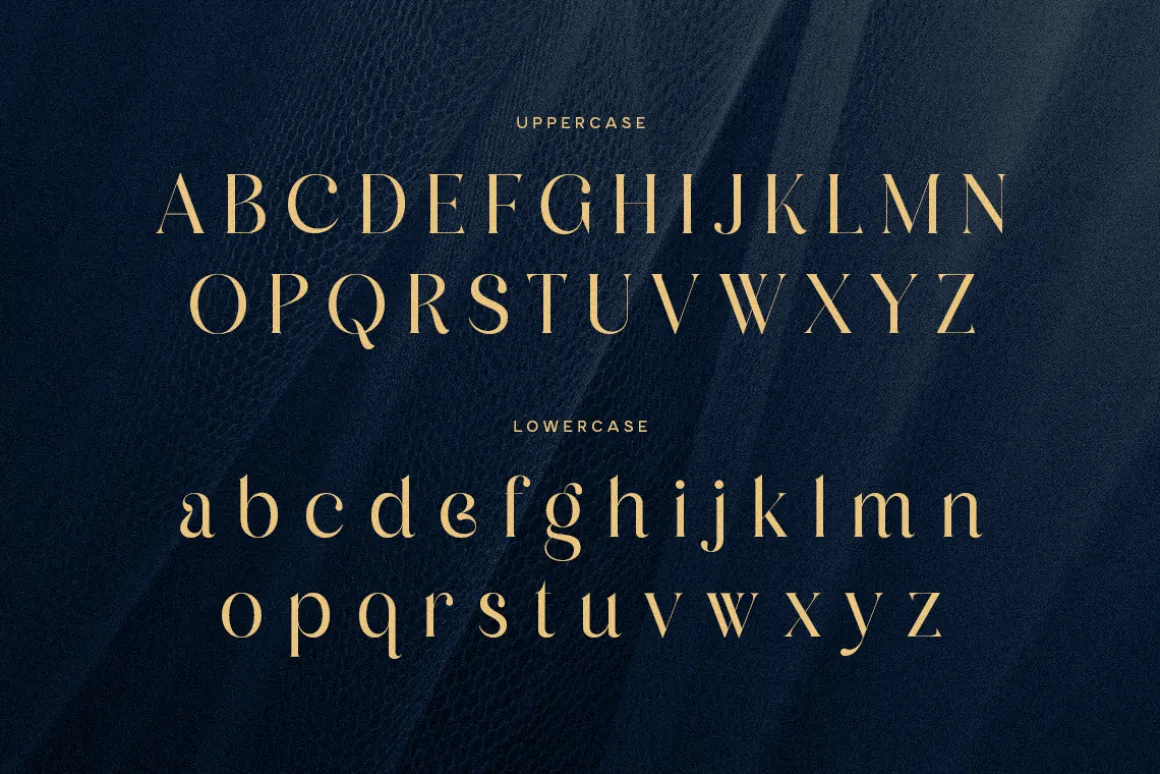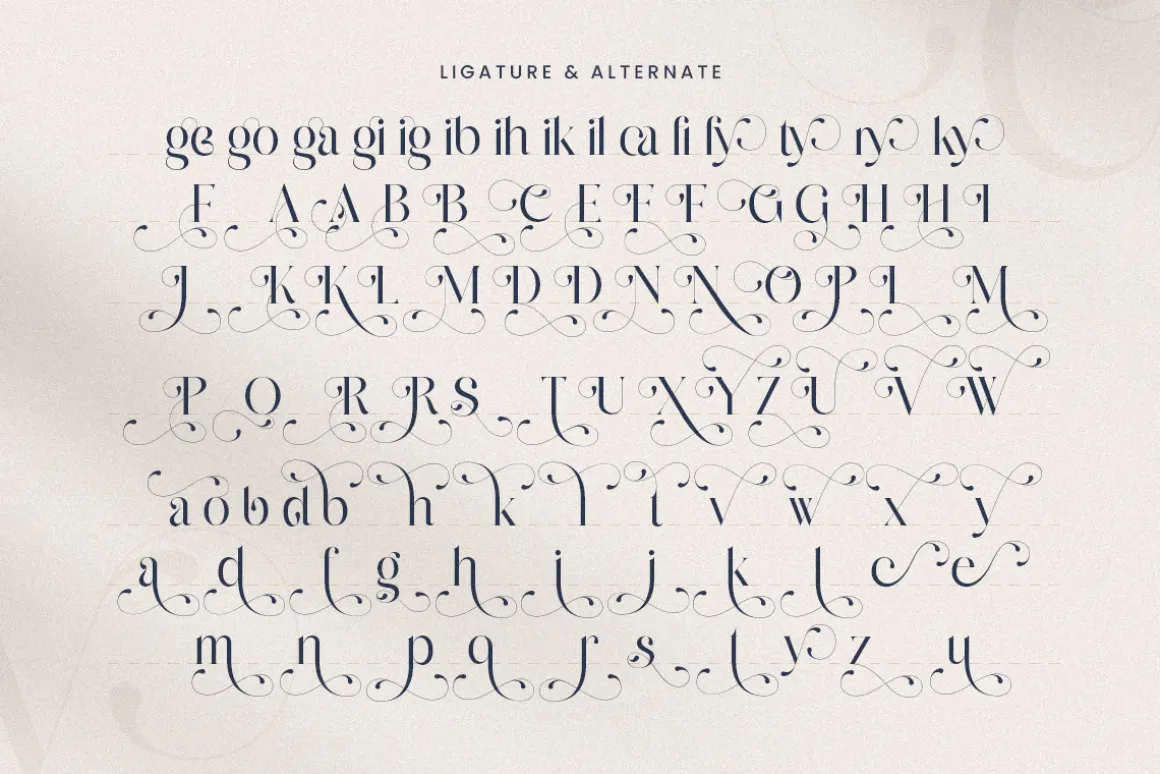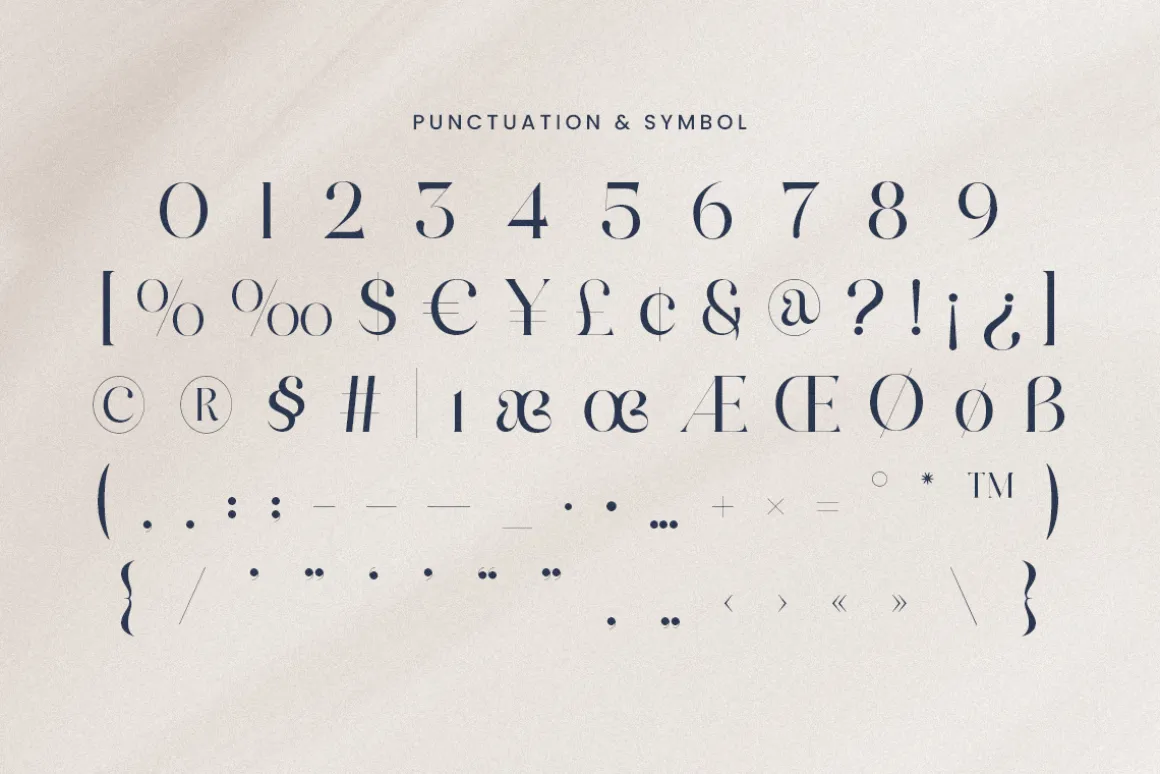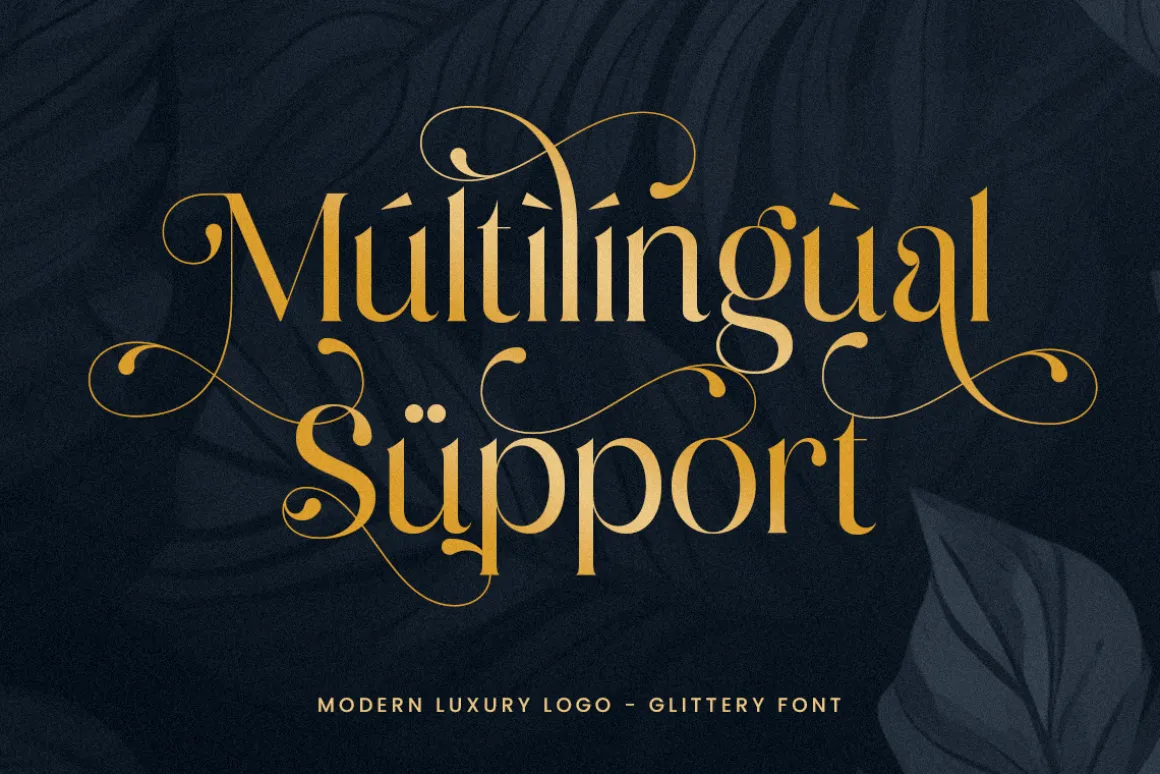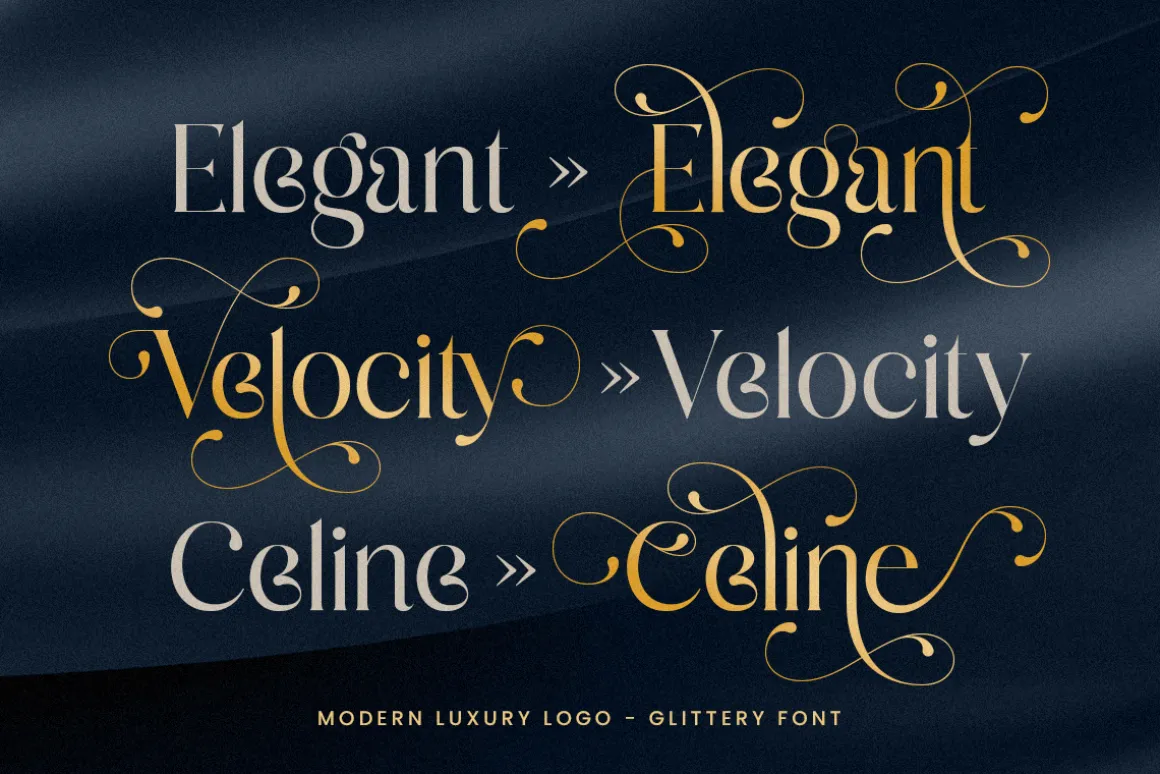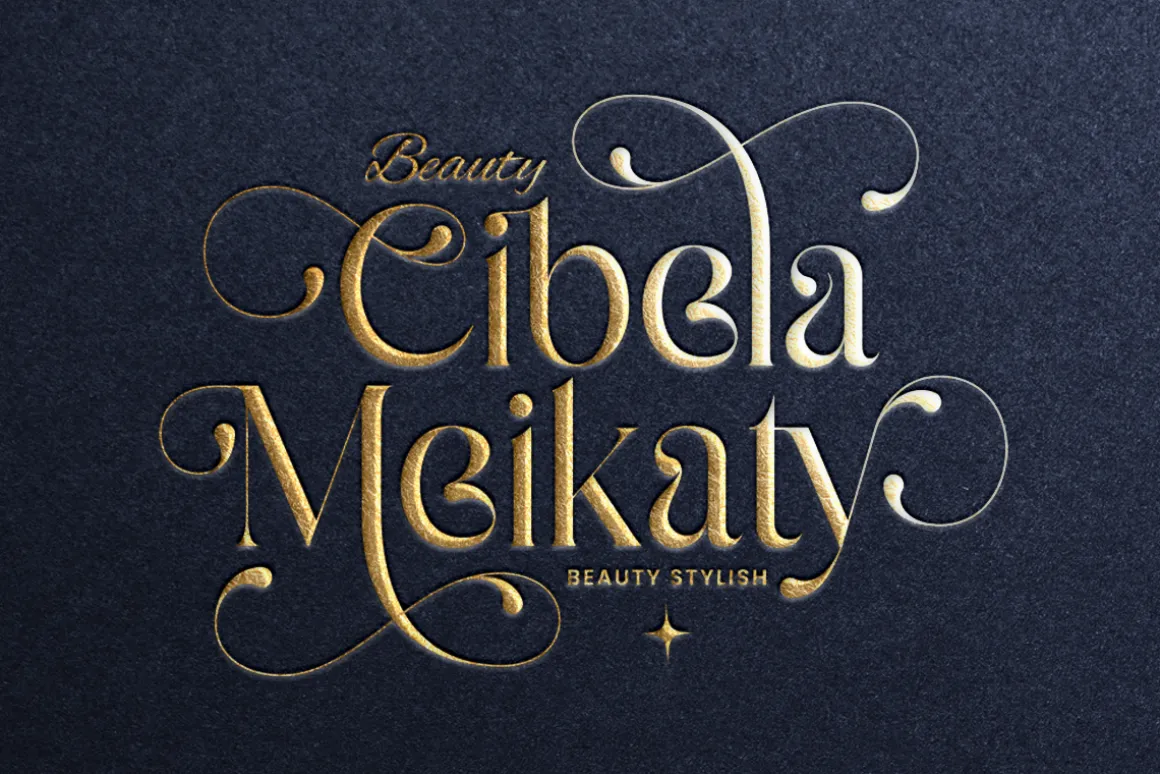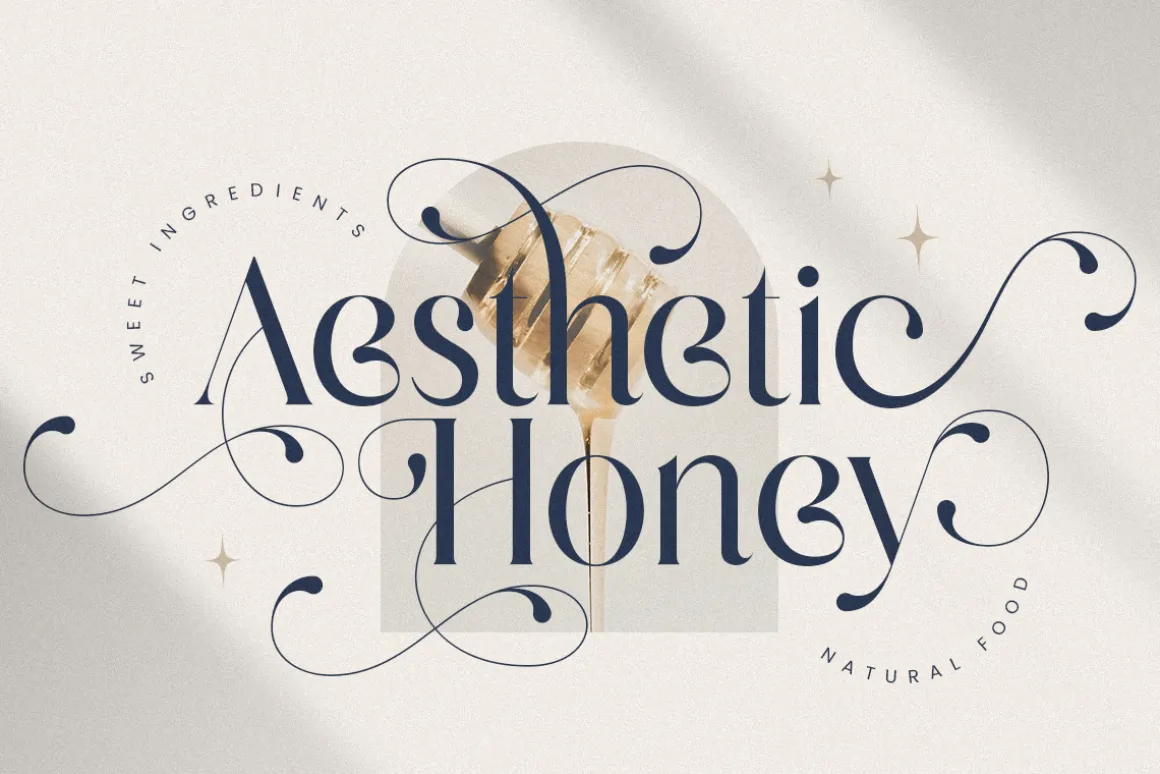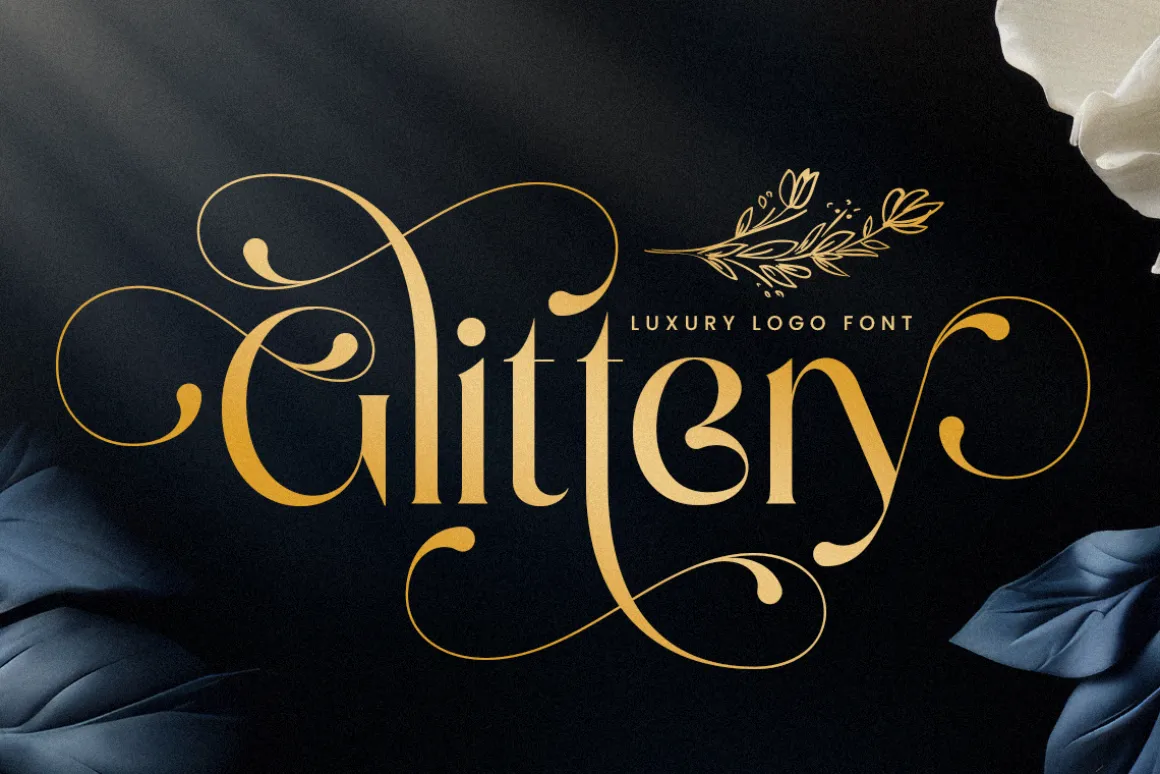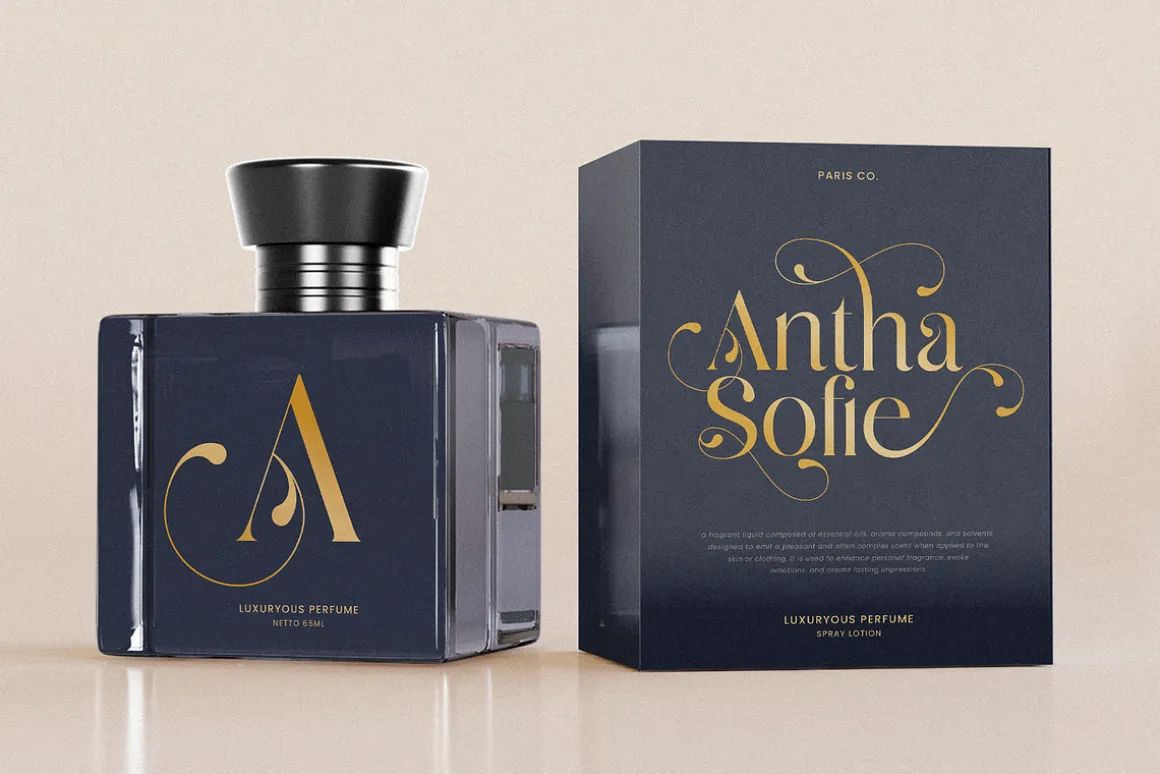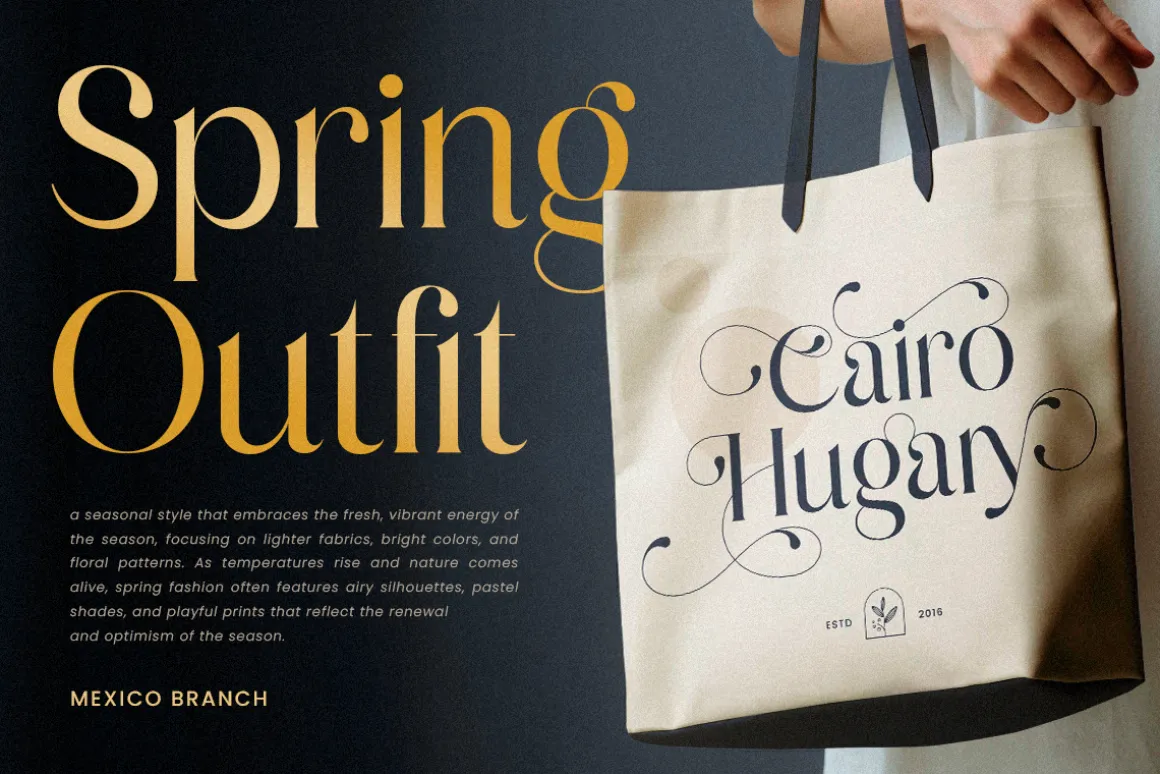
Glittery is a lavish luxury logo font designed to elevate your high-end branding projects. Its elegant, sparkling details make it perfect for creating stunning logos, invitations, and premium packaging designs. The refined letterforms of Glittery add a sense of sophistication and opulence, ideal for fashion, jewelry, or any luxurious brand identity.
Inspired by the shimmering beauty of luxury, Glittery captures the essence of elegance with every curve. This font was crafted to give your designs a polished, upscale look, perfect for making your brand shine in a competitive market. Whether you’re working on a high-end boutique or luxury service logo, Glittery is designed to leave a lasting impression.
With its lavish style and timeless appeal, Glittery is the ideal choice for those looking to add a touch of elegance and exclusivity to their designs. Bring your visions to life with Glittery’s exquisite details and luxurious finish.
Glittery Lavish Luxury Logo Font Features:
Unique Ligature & Alternate Characters Ready
Punctuation, Number, and Symbol
Uppercase and Lowercase
Multilingual Support
Opentype Features